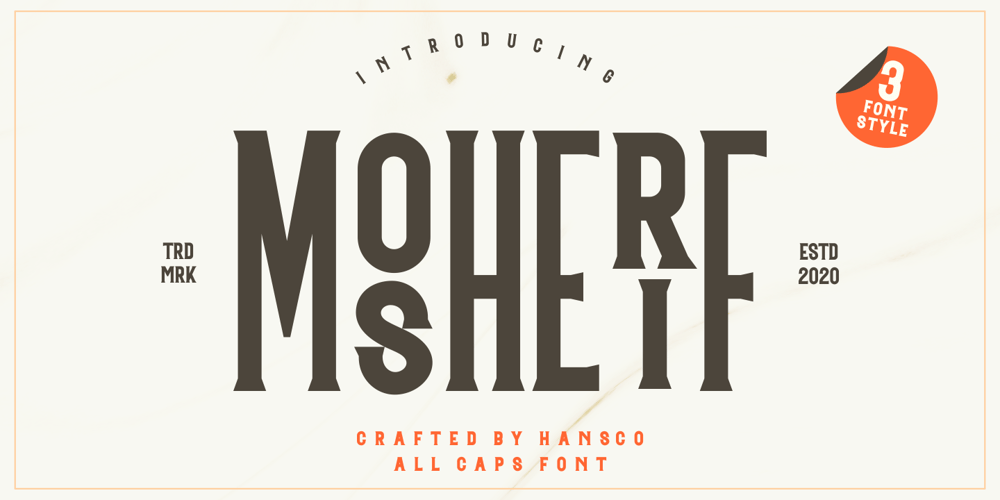
Mosherif
Mosherif font
Mosherif Font Family was designed by Burhan Afif and published by HansCo. Mosherif contains 3 styles and family package options. Mosherif is a type of sherif font created with the aim of using for logo branding and print media. This font has three style that can be combined manually with one another in one word / text so that it looks unique and interesting. One example is in the first preview ( cover ), where the word “MOSHERIF” was made using three font styles ( Mosherif Regular, Mosherif Tall and Mosherif Short ). You can make it manually by making a space and remove some characters between words “MOSHERIF” becomes “M HE F” with using the font “Mosherif Tall” and fill it with “Mosherif Regular” in character “O” and “R” and “Mosherif Short” in character “S” and “I” by stacking them.By bringing the concept of vintage, clean, thick and sharp, hopefully Mosherif can provide choices for designers.Enjoy!